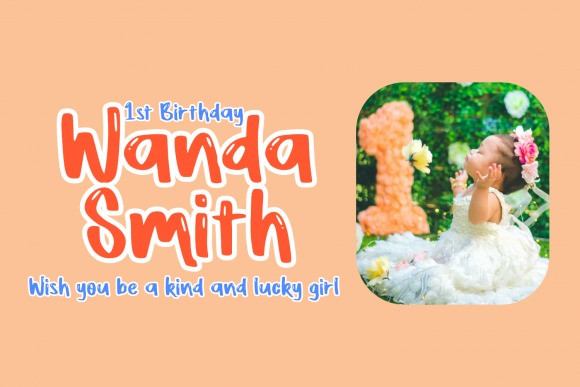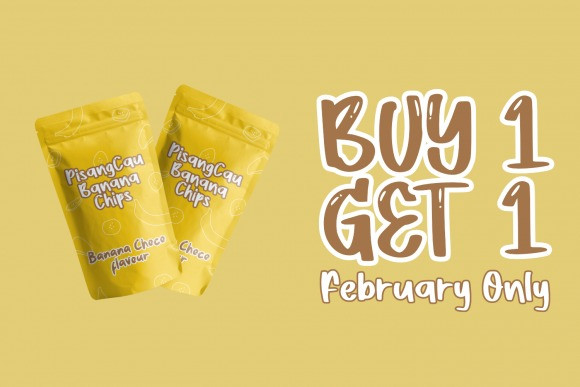
Bostwy Display Font
Bostwy is a sweet and quirky handwritten font. It embodies authenticity and joy and it will brighten up each of your children or school themed designs.